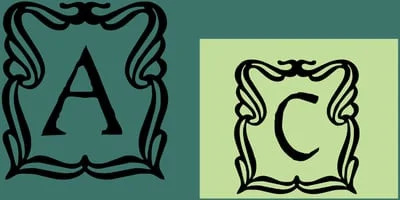
American Advertise 017 Font
American Advertise 017 Font excels in classic commercial designs, retro magazine layouts, vintage billboard graphics, old-fashioned store signage, nostalgic brand revivals, traditional advertising posters, heritage product packaging, Americana restaurant menus, classic car show materials, and timeless marketing campaigns. Its commercial character makes it perfect for projects requiring authentic mid-century American advertising sophistication and persuasive visual impact.
What makes American Advertise 017 Font exciting is its masterful capture of the persuasive elegance that defined American commercial typography during the advertising industry's most influential era. The font features refined letterforms with subtle Art Deco influences that embody the confidence and prosperity of classic American commerce while maintaining exceptional readability for modern applications. Its sophisticated character reflects the era when advertising became an art form.
The American Advertise 017 Font family includes Regular, Bold, Light, Italic, Condensed, Extended, and Display variations. Each style maintains the font's commercial heritage while offering different weights and treatments for creating effective advertising hierarchies. The comprehensive character set includes vintage commercial symbols, period-appropriate ornaments, and classic American typography elements essential for authentic retro advertising projects.
Advertising agencies and brand designers consistently choose American Advertise 017 Font for projects demanding sophisticated vintage commercial typography solutions. The font's refined advertising character creates instant credibility while ensuring powerful visual communication across contemporary marketing channels. Its timeless appeal makes it suitable for both heritage brand revivals and new brands seeking classic American commercial authenticity.
Whether you're developing vintage-inspired advertising campaigns, creating retro brand identities, or designing classic commercial materials, American Advertise 017 Font provides the perfect balance of nostalgic sophistication and modern effectiveness. The font's meticulously crafted letterforms ensure authentic period character while delivering excellent performance across various advertising formats and commercial applications.
The commercial heritage of American Advertise 017 Font makes it exceptional for establishing trust and familiarity with audiences who value classic American design traditions. Its vintage advertising elegance and persuasive appeal work seamlessly across traditional print advertising and contemporary digital marketing platforms. The font maintains its commercial sophistication across various media formats and promotional materials.
Elevate your advertising with American Advertise 017 Font and discover how classic commercial typography can enhance your brand's persuasive power and vintage appeal. This remarkable typeface combines advertising industry heritage with modern marketing functionality, making it indispensable for campaigns seeking the timeless effectiveness of golden-age American commercial design.